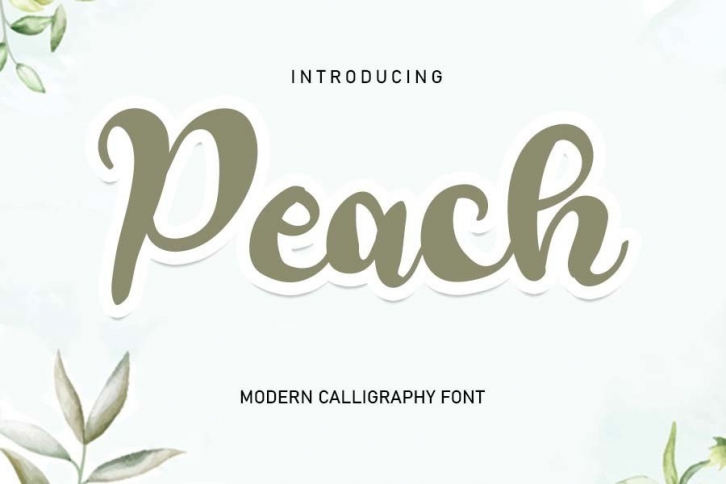
Peach is an incredibly unique handwritten font. Masterfully designed to become a true favorite, this font has the potential to bring each of your creative ideas to the highest level!